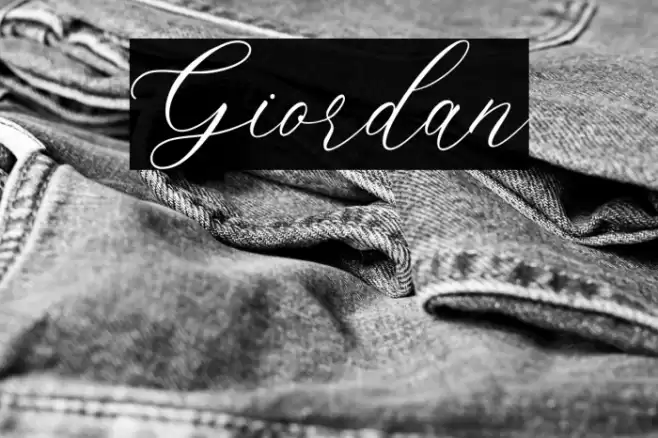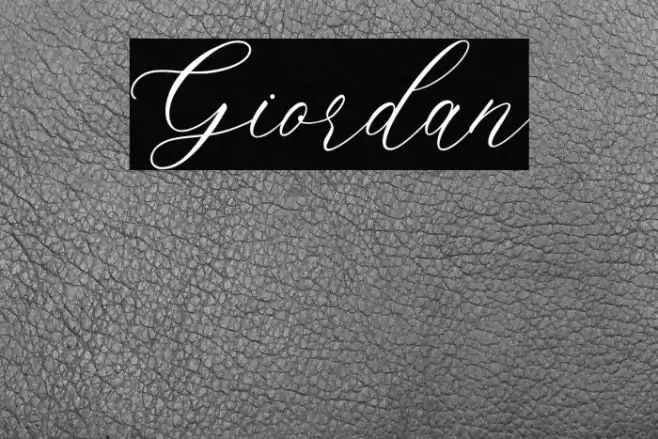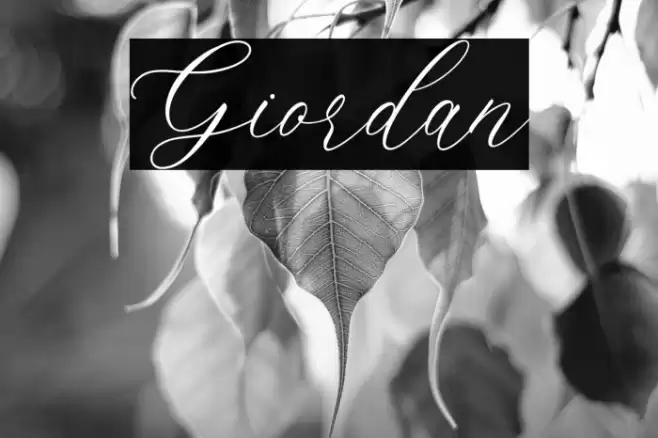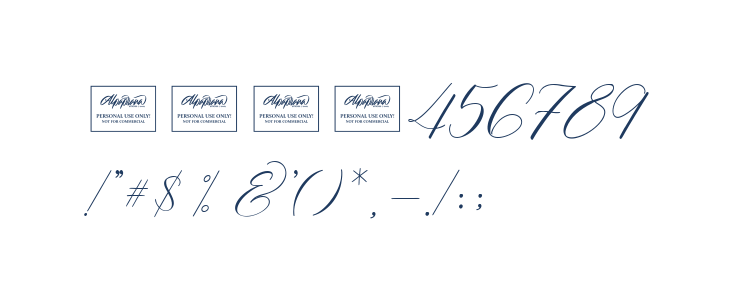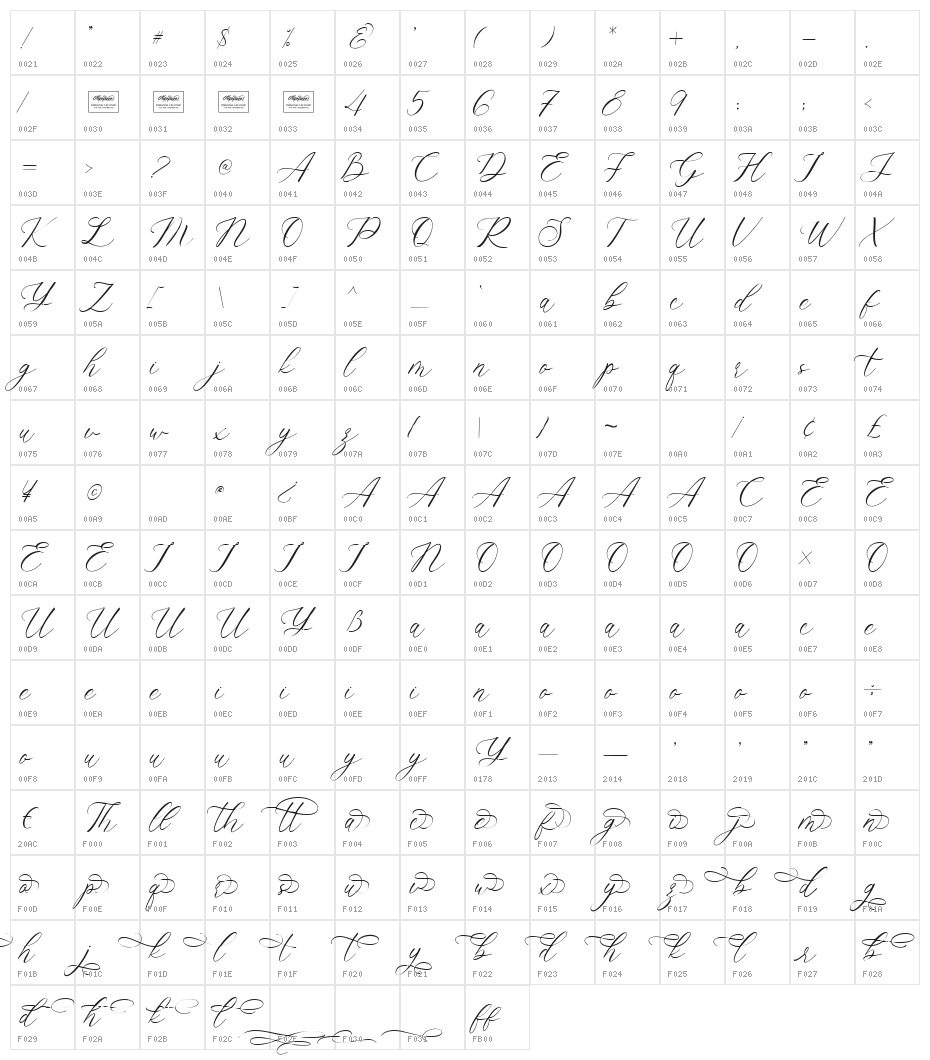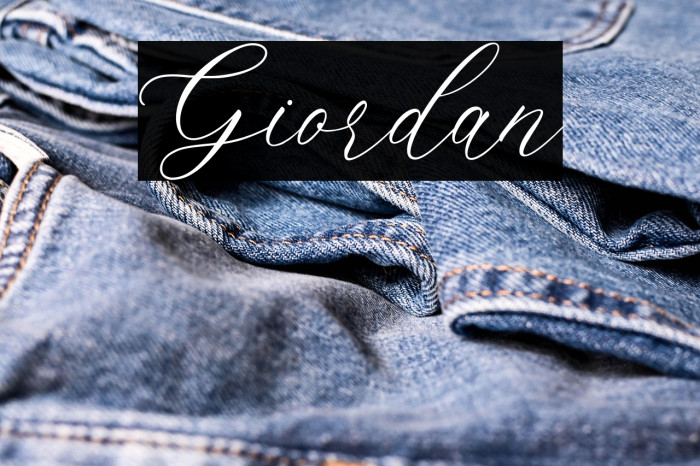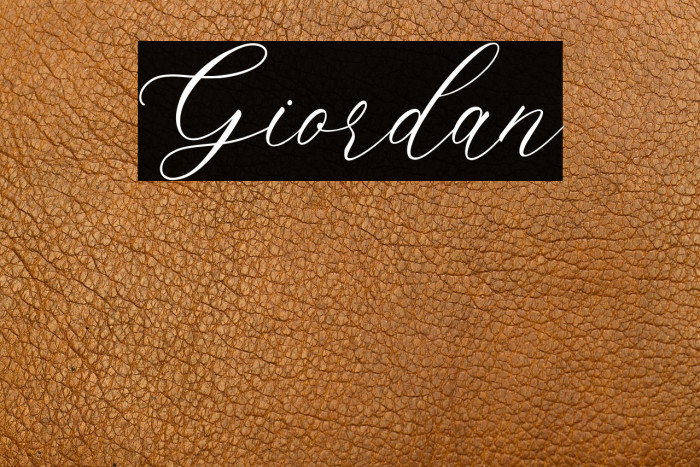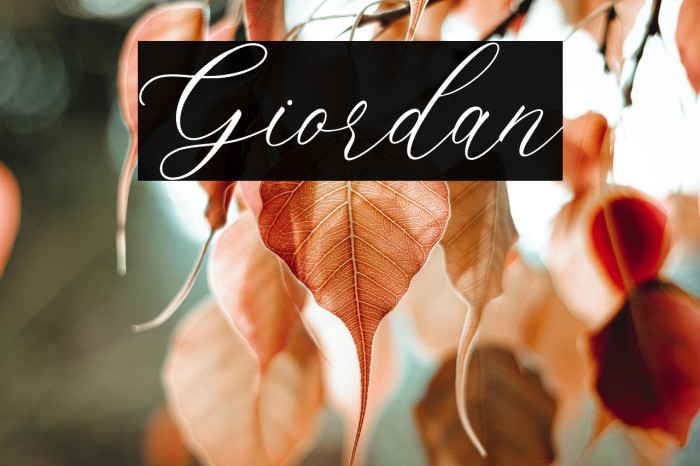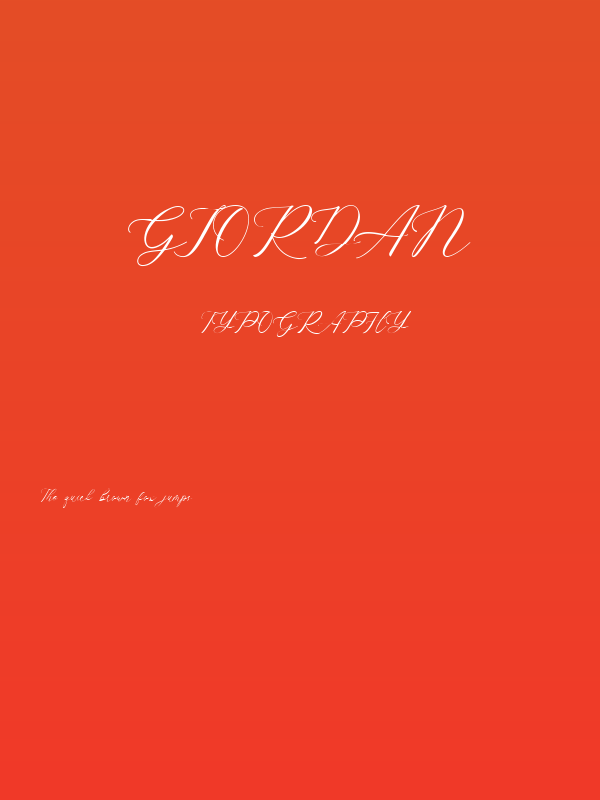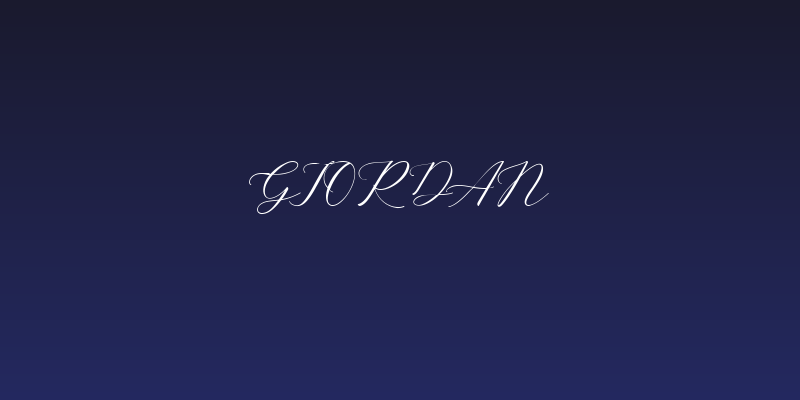
Giordan Font
Giordan Description
This elegant script font features fluid, cursive strokes that convey a sense of sophistication and grace. The characters are intricately designed with smooth curves and delicate lines, creating a harmonious flow from one letter to the next. The uppercase letters are slightly more ornate, with flourishes that add a touch of flair, while the lowercase letters maintain a consistent, flowing style. The numerals and special characters are crafted with the same attention to detail, ensuring a cohesive look across all elements. This font is perfect for projects that require a touch of elegance and refinement.
An elegant script font with fluid, cursive strokes and sophisticated design from Regular fonts.
- Proposed Projects: Ideal for wedding invitations, elegant branding, personal stationery, and upscale packaging.
- Overall Style: Elegant, Sophisticated
- Use Case: Logos, Invitations, Branding